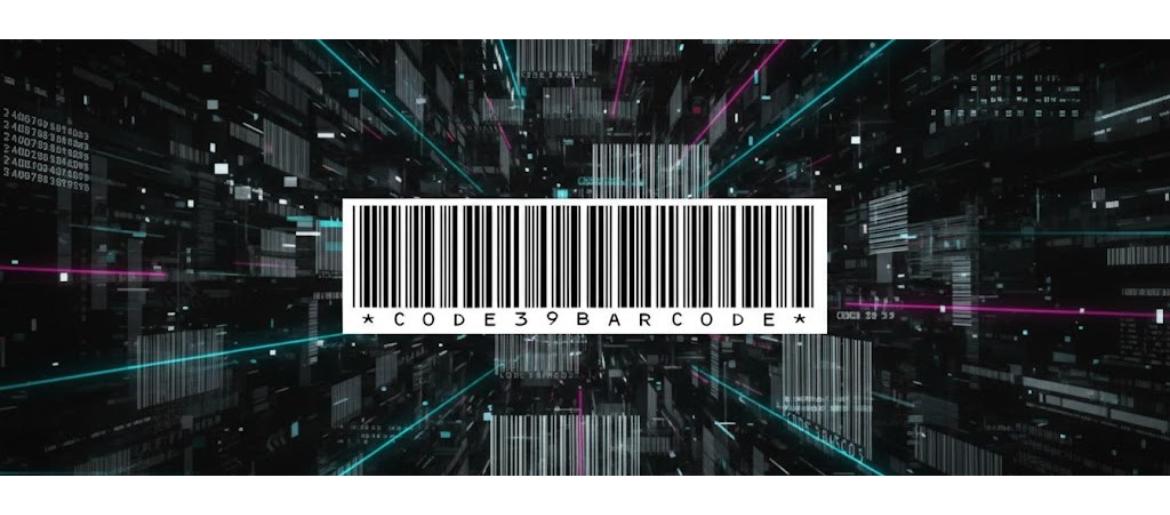
Code 39 Barcode Font
Code 39 Barcode Font is a functional barcode typeface widely used for inventory, labeling, and asset tracking systems. It encodes alphanumeric characters clearly, supports easy scanning, and is commonly applied in logistics, warehousing, manufacturing, retail, and industrial workflows where machine readability and accuracy are essential for standardized operational identification purposes.